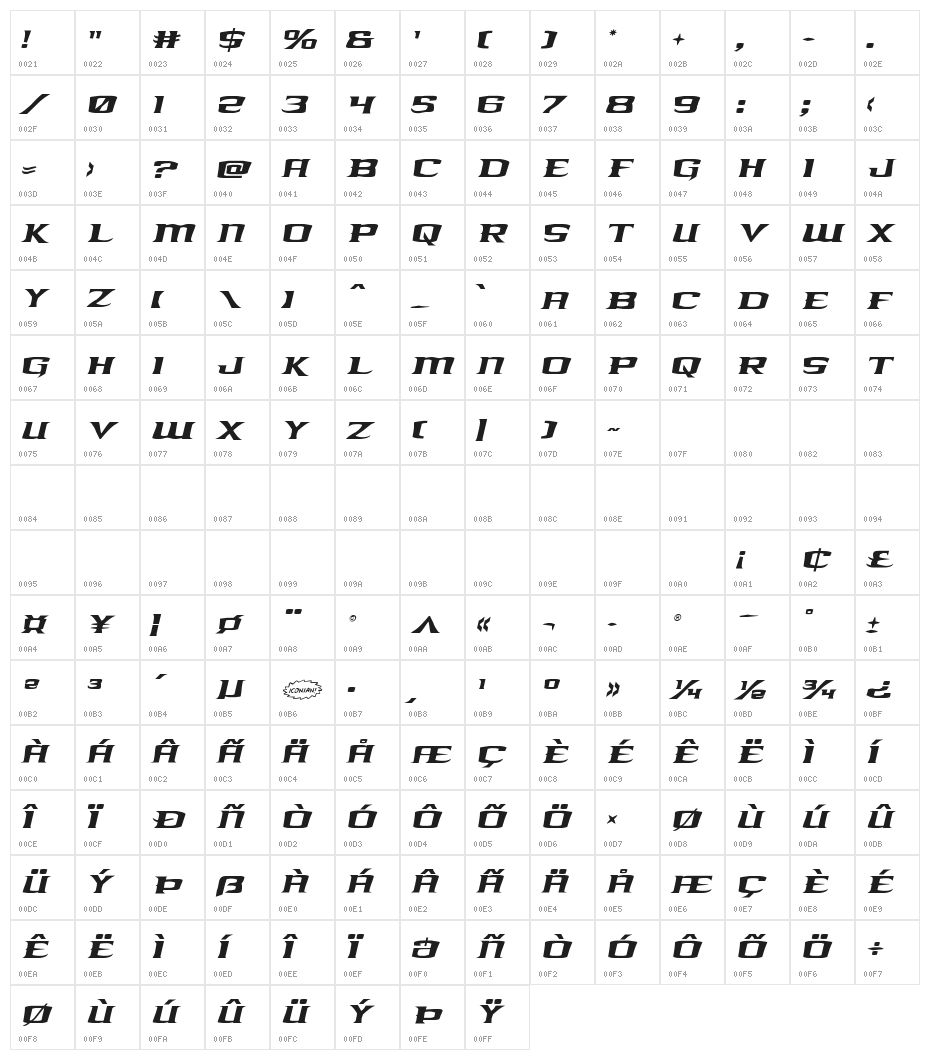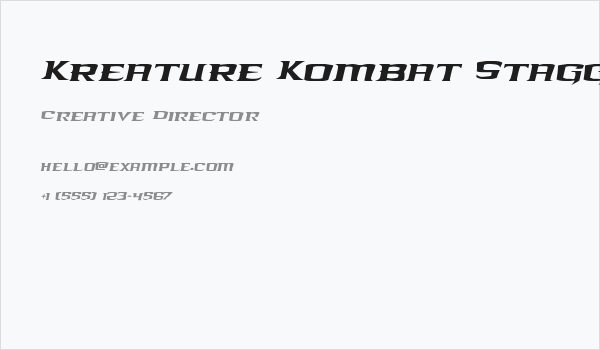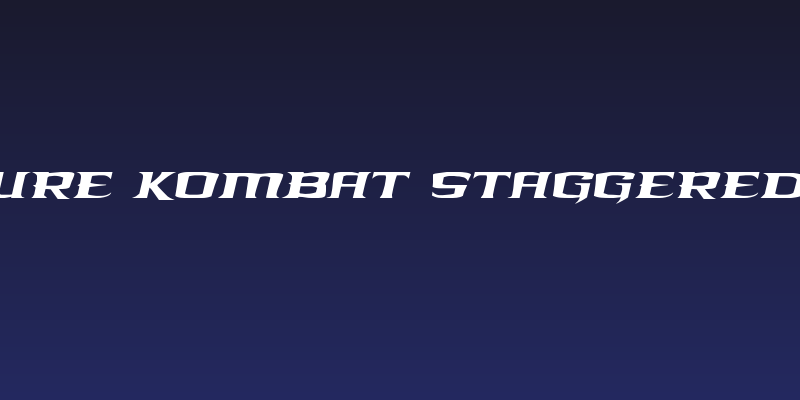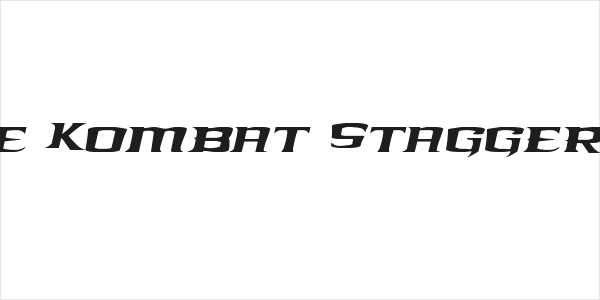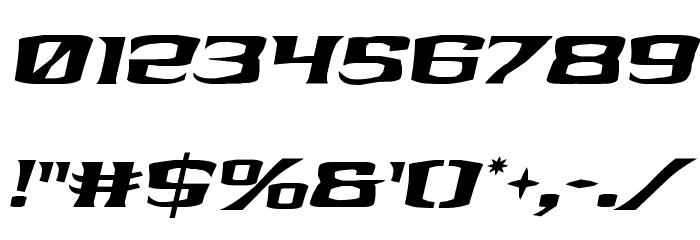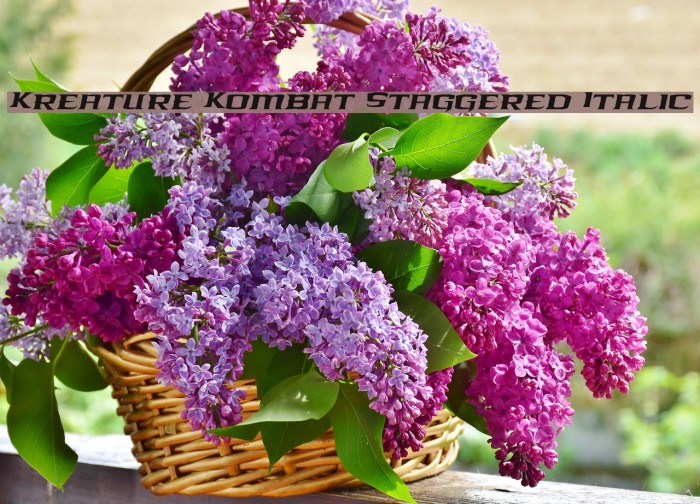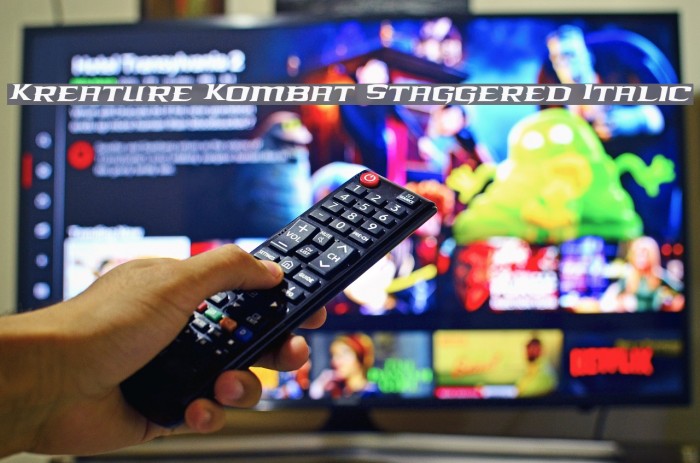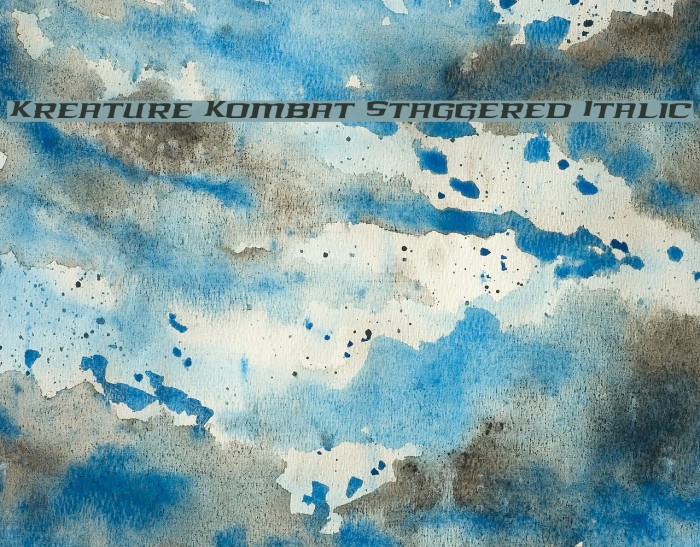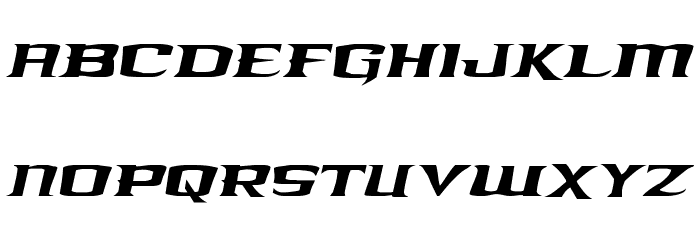
Kreature Kombat Staggered Italic Font
Kreature Kombat Staggered Italic Description
This font features a bold and dynamic style with sharp, angular edges and a distinct italic slant. The characters are designed with a staggered, aggressive appearance, giving them a sense of movement and energy. The uppercase and lowercase letters maintain a consistent style, while the numerals and special characters follow the same bold and angular design. The font's unique characteristics make it stand out, with its strong presence and modern aesthetic.
| Proposed Projects | Ideal for video game titles, action movie posters, sports branding, and edgy graphic design projects. |